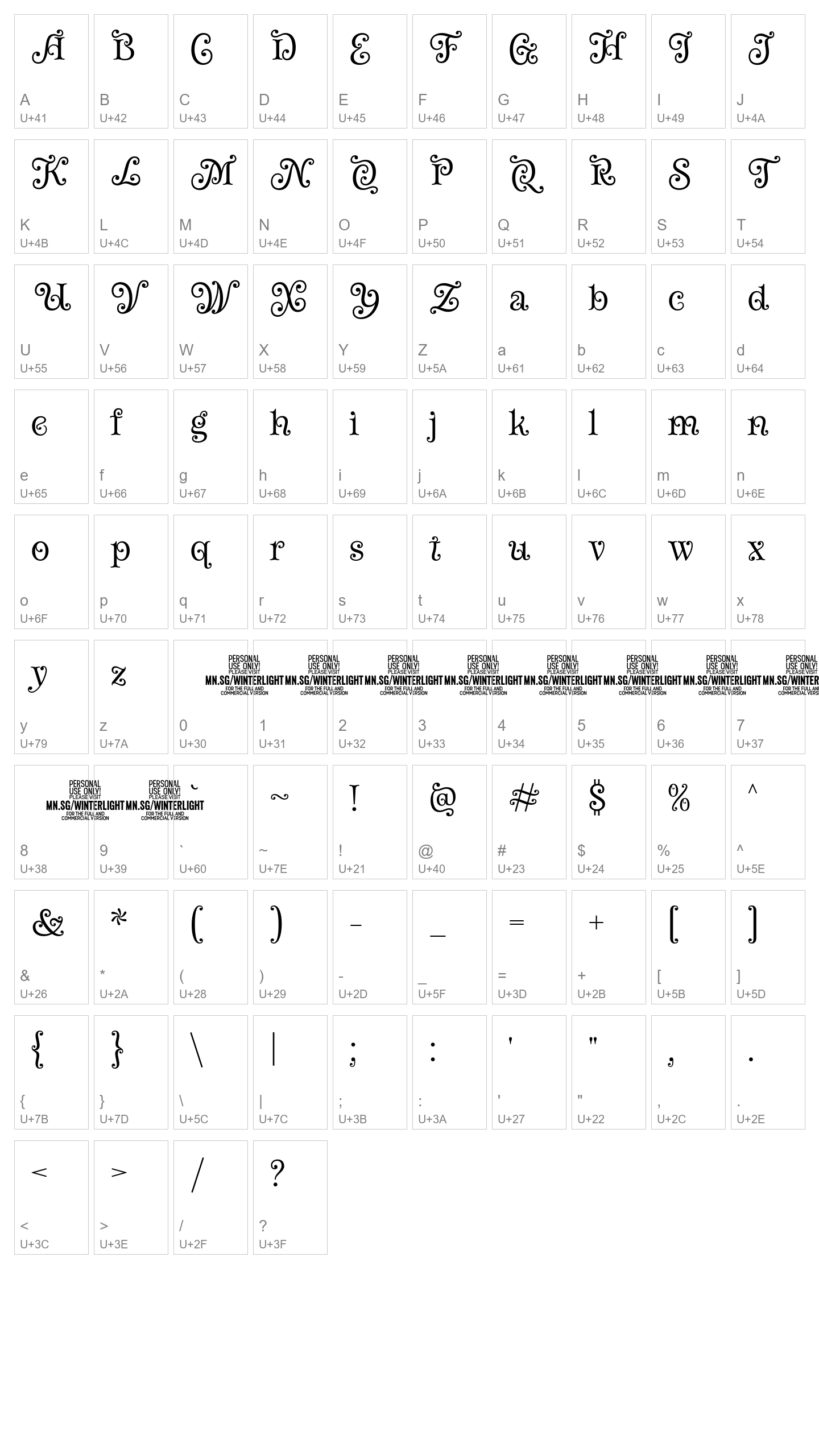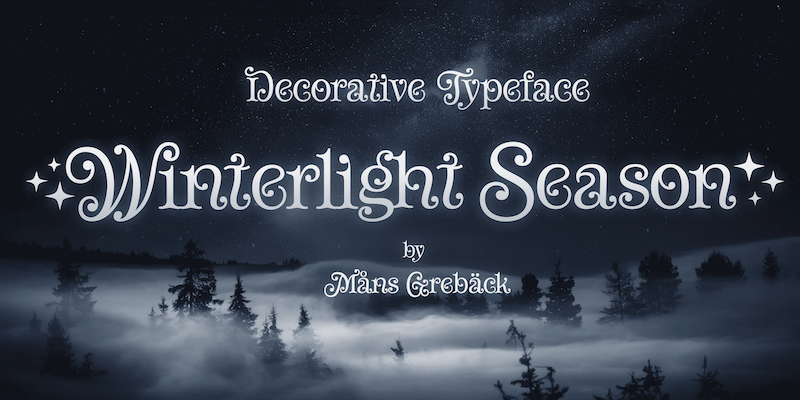
Winterlight Season
Winterlight Season captures the enchantment of Christmas with its swirly design.
Use the percent character % and a number to create Xmas symbols.
Example: Secret %37 Santa